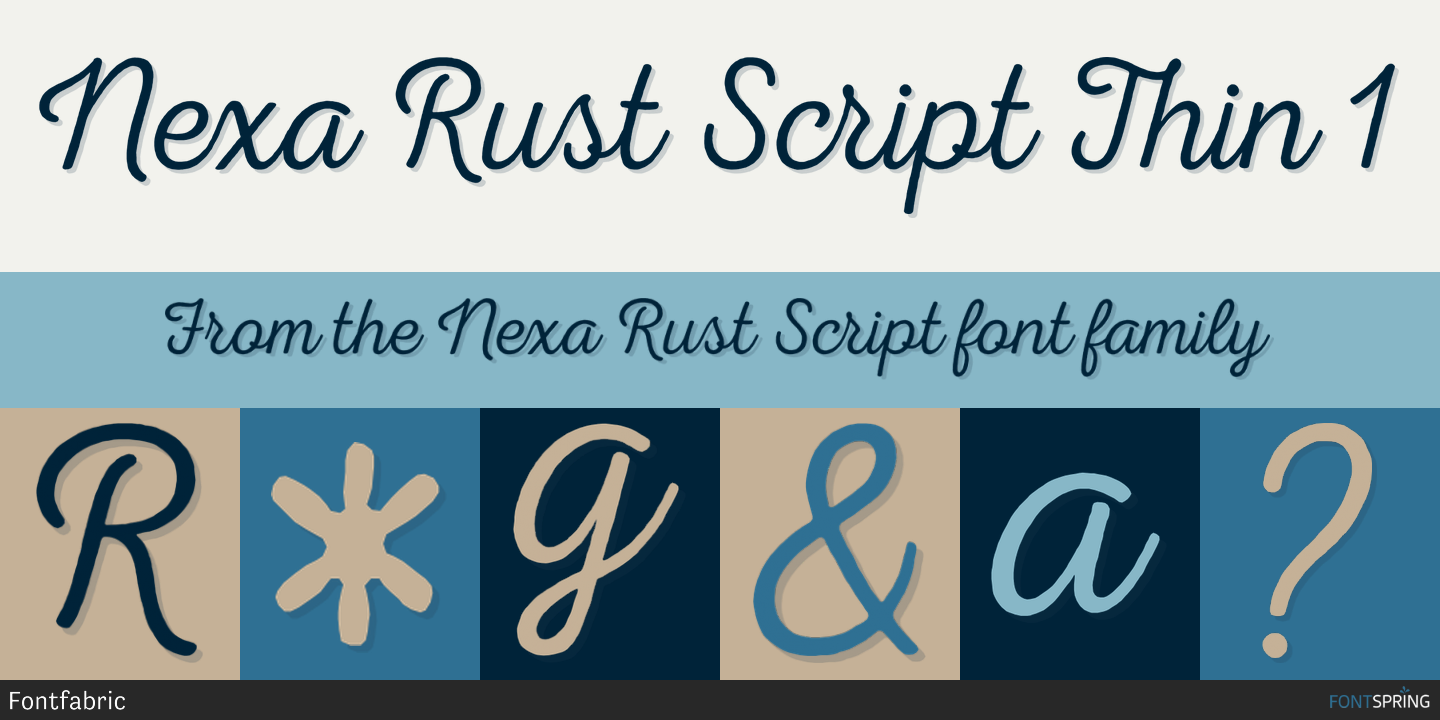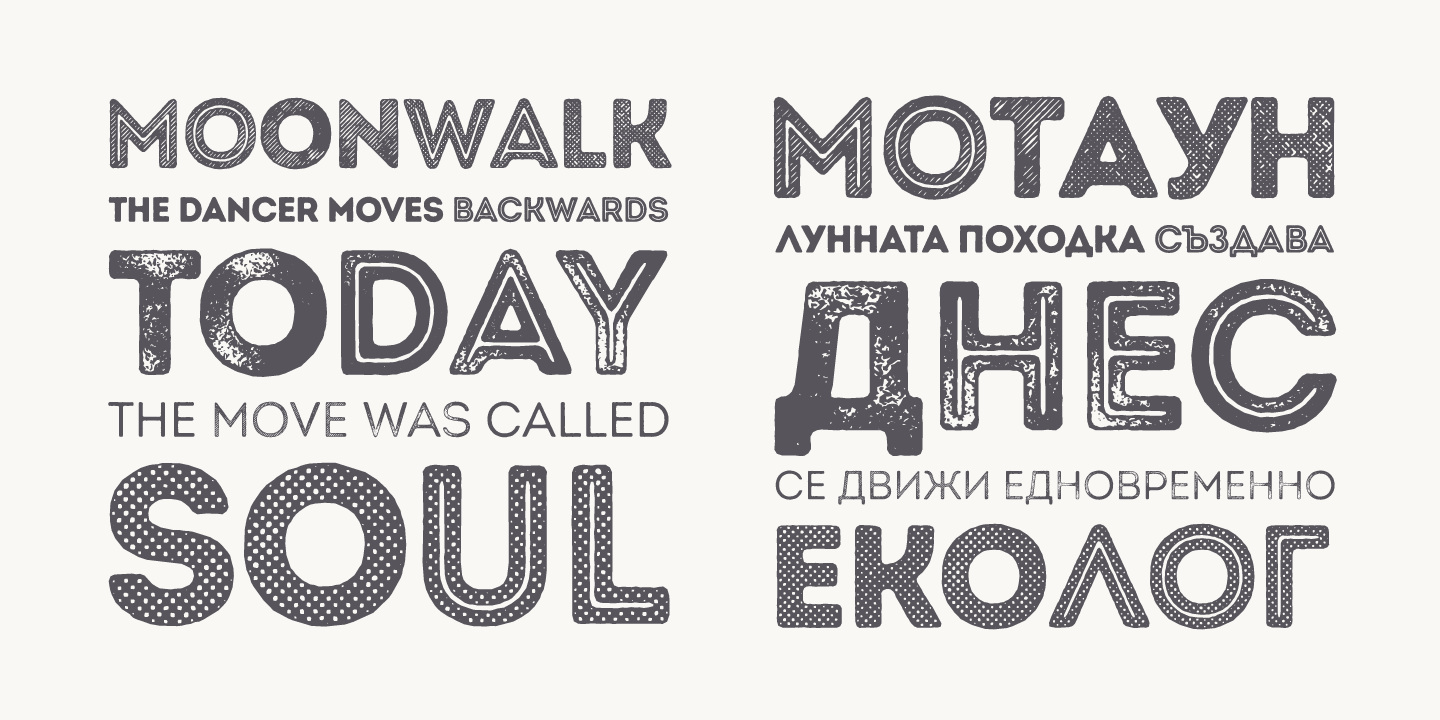
Nexa rust font free download. Nexa rust from fontfabric type foundry is a multifaceted font system consisting of font sub families sans slab script handmade and extras. Download 5 free fonts here. Nexa rust script font free download. Nexa rust from fontfabric type foundry is a multifaceted font system consisting of font sub families sans slab script handmade and extras.
Nexa rust free font nov 17 2017 by dafont 1 comment nexa rust from fontfabric type foundry is a multifaceted font system consisting of font sub families sans slab script handmade and extraseach of these sub families contains a number of font weights which have a characteristic warm rough look and display a few degrees of saturation. Supports extended latin cyrillic. Nexa rust script l 0regular font 76997 views 26924 downloads file name. 327 kb total views.
Nexa font family is suitable for headings of all sizes and text blocks in both maximum and minimum width and height. Download nexa rust font family free for commercial use includes nexa rust slab black shadow 01 sans black script l 0 handmade extended extras free nexa rust from fontfabric type foundry is a multifaceted font system consisting of font sub families sans slab script handmade and extras. Nexa rust is usually a tough edition from the currently preferred nexa and nexa slab families with added new matching nexa script and nexa handmade fonts. 100 nexa rusta display font system slab sans script extras a total of 83 fonts.
Nexa rust font free download in conjunction with all this additionally you will find added groups of extras which could provide for a basis or increase that more cherry about the cake. Each of these sub families contains a number of font weights which have a characteristic warm rough look and display a few degrees of saturation. Nexa font styles are applicable for any type of graphic design of digital web print hard surfaces fabrics along with posters logos and branding. Fontfabric type foundry shares 4 free download nexa fontsnexa bold font.
Each of these sub families contains a number of font weights which have a characteristic warm rough look and display a few degrees of.